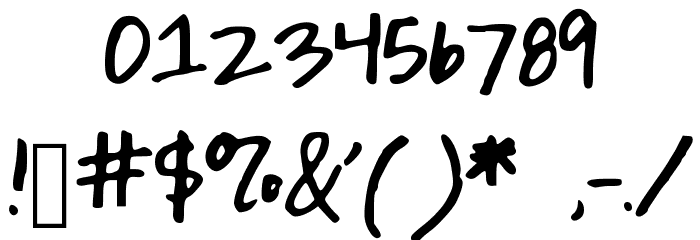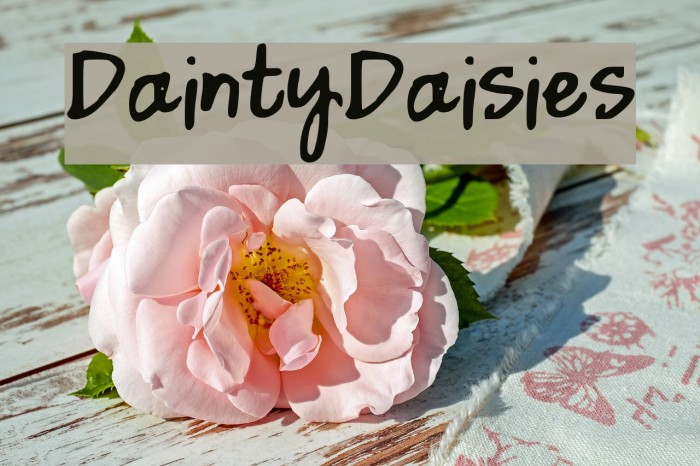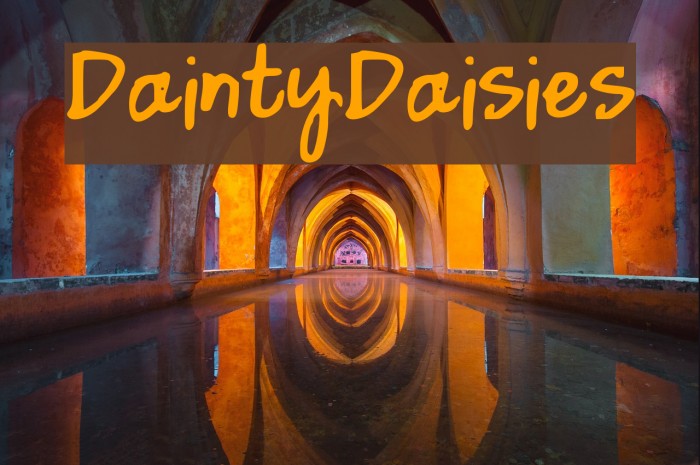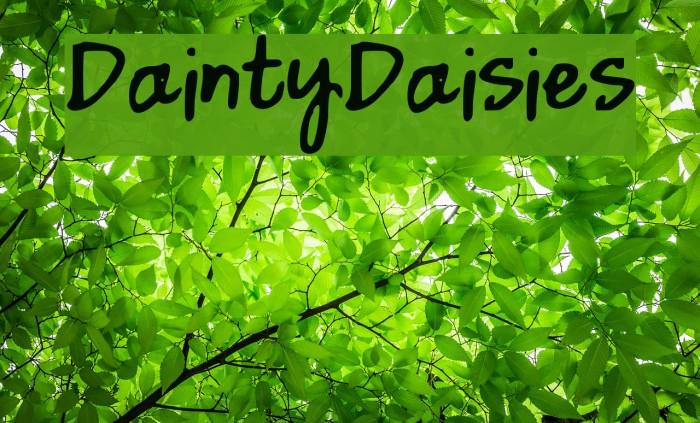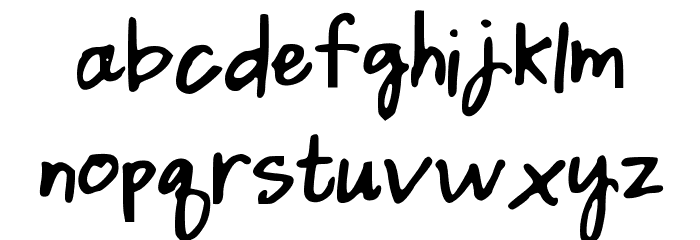
DaintyDaisies Font
This font exudes a playful and casual handwritten style, characterized by its smooth, flowing lines and slightly irregular shapes. The letters are well-rounded with a consistent stroke width, giving it a friendly and approachable appearance. The uppercase letters maintain a uniform height, while the lowercase letters exhibit a slight variation in size, adding to its informal charm. The numerals are clear and legible, matching the overall style of the alphabet. Special characters are included, maintaining the same whimsical and relaxed aesthetic. This font is ideal for projects that require a personal touch, such as greeting cards, invitations, or casual branding.
A playful, casual handwritten font with smooth, flowing lines and consistent stroke width.
• Proposed Projects: Greeting cards, invitations, casual branding, personal notes, and playful designs.
• Category: Handwritten
• Contrast: Low
• Overall Style: Casual, Playful
• Use Case: Headlines, Logos, Invitations